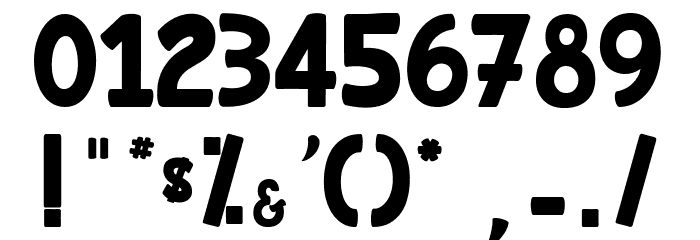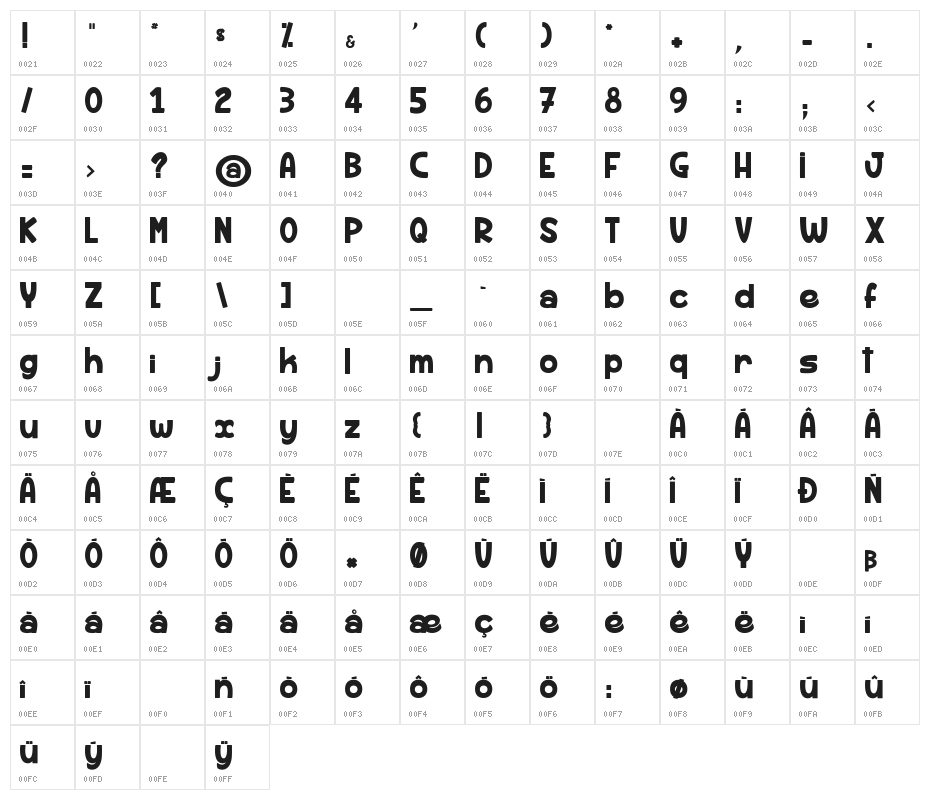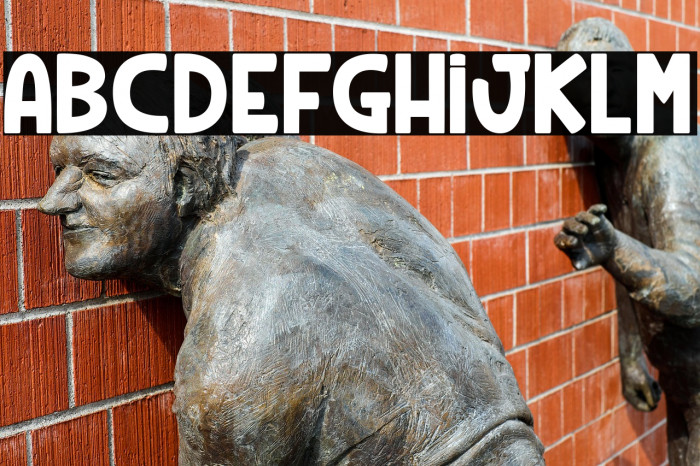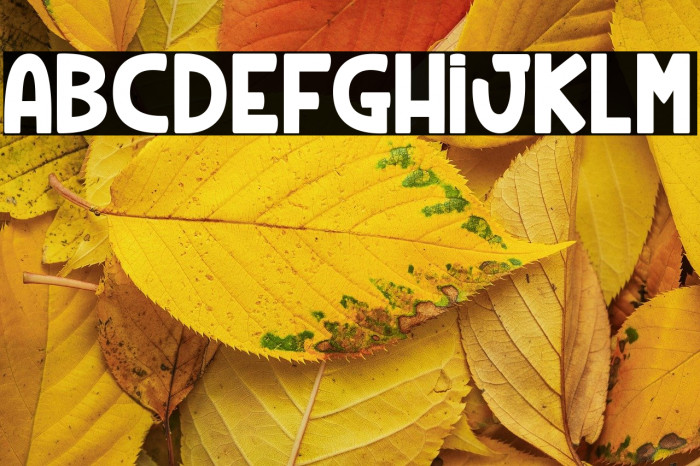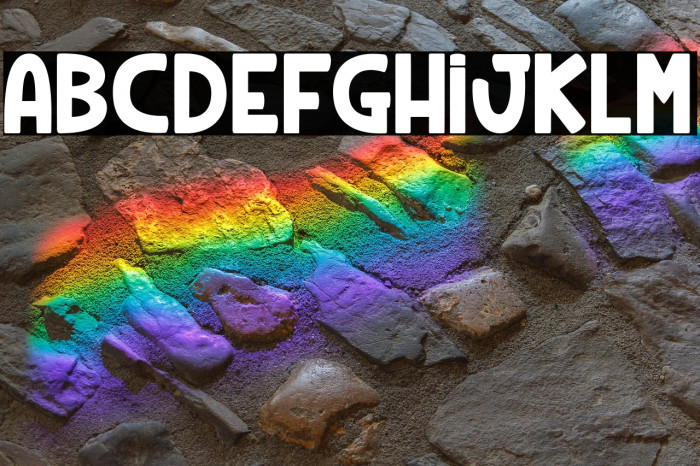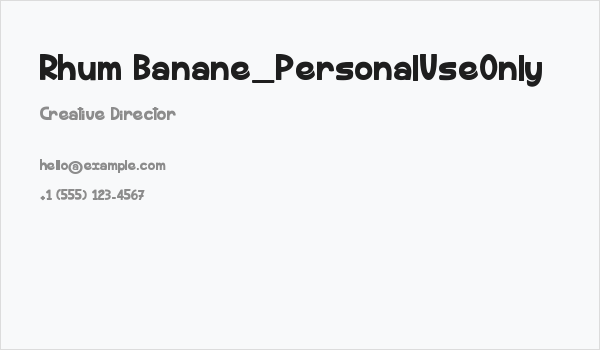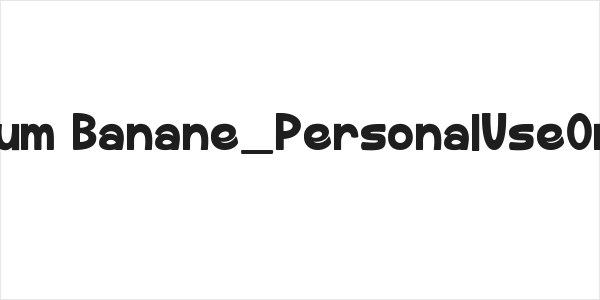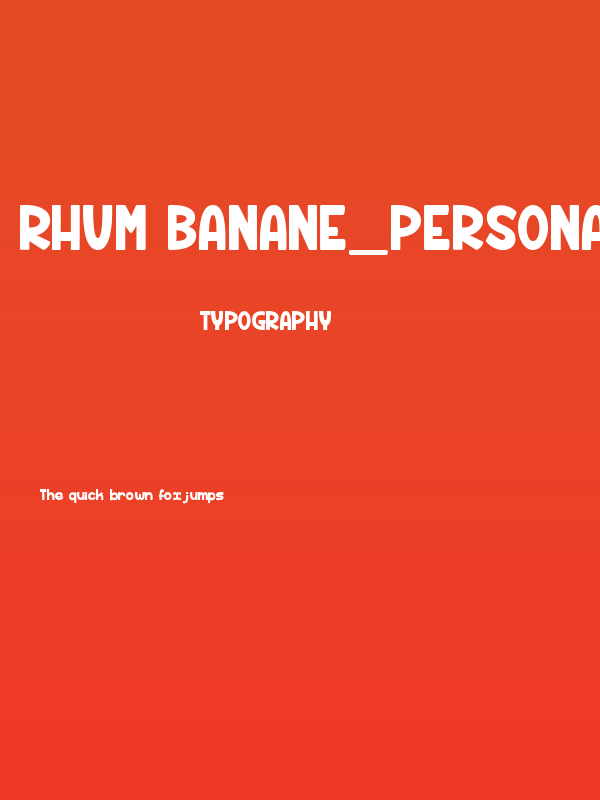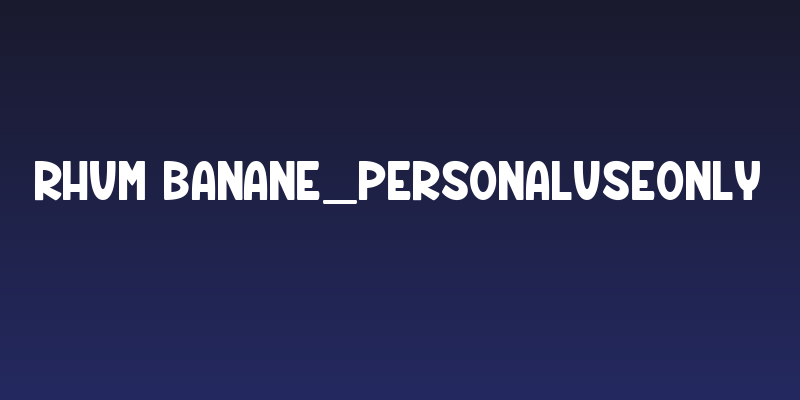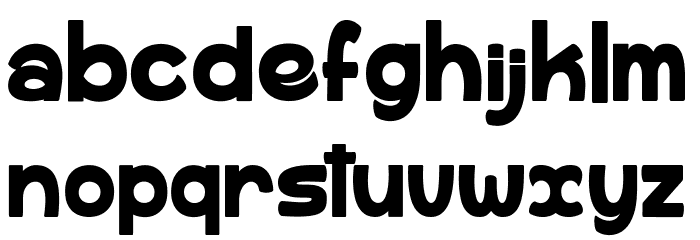
Rhum Banane_PersonalUseOnly Font
Rhum Banane_PersonalUseOnly Description
This font features a bold and playful design with rounded edges and a slightly whimsical appearance. The characters are thick and robust, giving off a friendly and approachable vibe. The uppercase and lowercase letters maintain a consistent style, with a slight variation in the curvature and stroke endings that add a unique charm. The numbers are equally bold, ensuring readability and consistency across different uses. Special characters are designed to match the overall playful aesthetic, making this font suitable for creative and informal projects.
| Proposed Projects | Ideal for children's books, playful branding, posters, and creative invitations. |